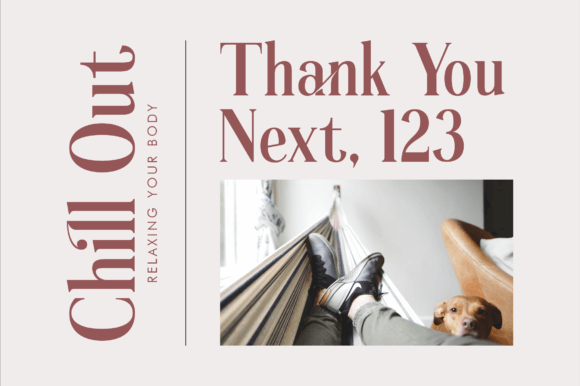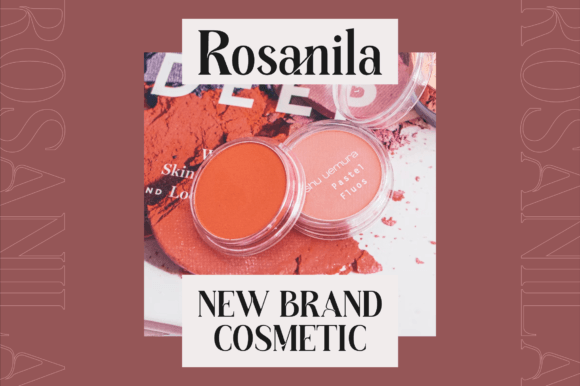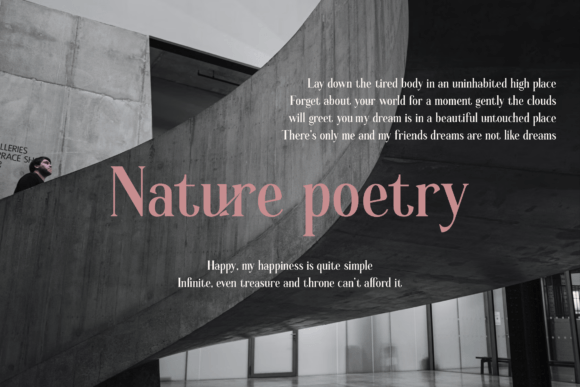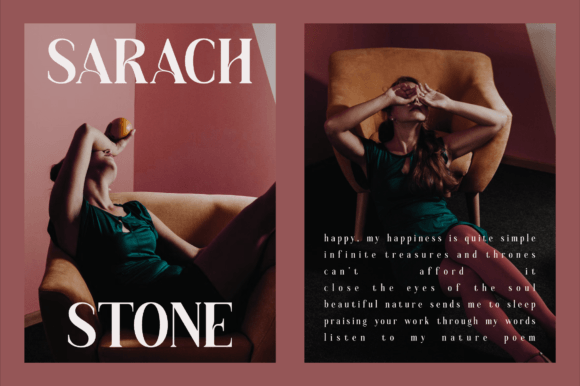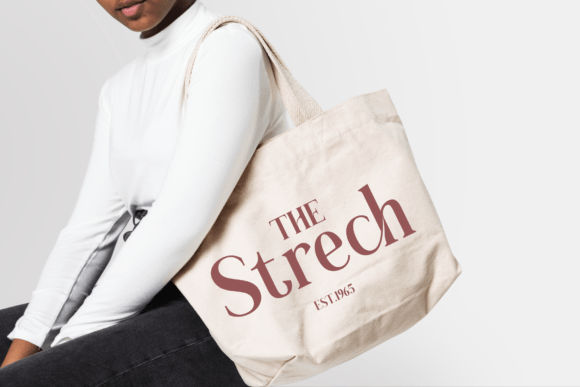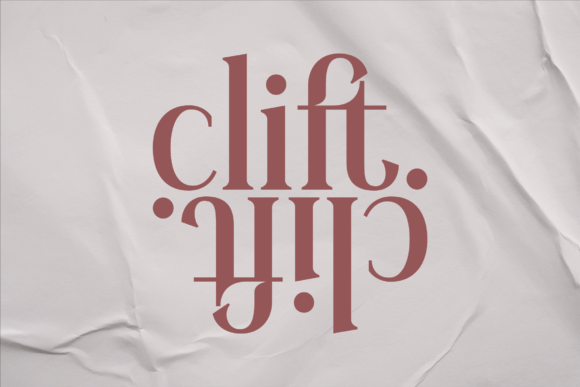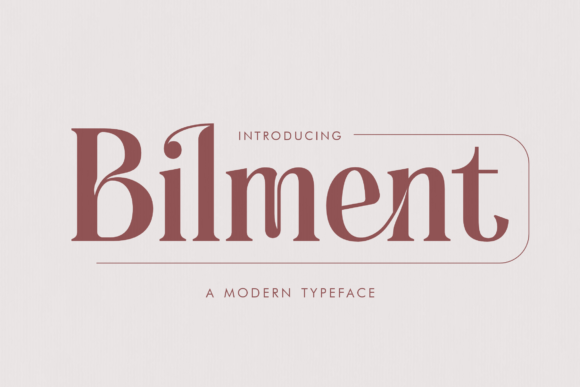
Bilment Font: Elevate Your Designs with a Classic Serif Typeface
In the world of typography, a font can make or break a design. For designers and crafters seeking a typeface that exudes elegance and luxury, Bilment Font is an excellent choice. This classic serif font boasts a unique style and modern look, making it perfect for a wide range of applications, from logos and titles to fashion branding and editorial design.
The Characteristics of Bilment Font
Bilment Font is a serif typeface that draws inspiration from traditional typography while infusing it with a modern twist. Its classic roots are evident in the subtle flair of its serifs and the gentle curves of its letterforms. However, what sets Bilment apart is its distinctive style, which lends itself to both sophistication and approachability. The font’s unique blend of classic and contemporary elements makes it versatile and highly adaptable.
Uses of Bilment Font
The versatility of Bilment Font is one of its most compelling features. Here are some of the many ways designers and crafters can utilize this elegant typeface:
- Elegant Logos: Create a lasting impression with a logo that embodies sophistication and refinement. Bilment Font is ideal for luxury brands, high-end services, and premium products.
- Book and Movie Titles: Add a touch of class to your book covers or movie posters. The font’s classic yet modern appeal makes it perfect for capturing the essence of your story.
- Fashion Branding: Elevate your fashion brand with a typeface that speaks to elegance and style. Bilment Font is well-suited for logos, labels, and marketing materials.
- Magazines and Editorial Design: Give your magazine or editorial content a professional edge with Bilment Font. Its readability and aesthetic appeal make it an excellent choice for articles, headlines, and titles.
- Clothes and Apparel: From brand labels to clothing tags, Bilment Font adds a touch of sophistication to any apparel-related design.
- Lettering and Quotes: Create beautiful lettering pieces or quote designs that stand out. The font’s unique style and classic roots make it perfect for inspirational quotes, sayings, or custom lettering projects.
Why Choose Bilment Font?
With so many fonts available, why choose Bilment? Here are a few reasons why designers and crafters are gravitating towards this typeface:
- Unique Style: Bilment Font offers a distinctive look that sets it apart from more traditional serif typefaces. Its modern twist on classic design makes it stand out in any project.
- Versatility: Whether you’re working on a luxury brand, a fashion magazine, or a book title, Bilment Font adapts seamlessly to various design needs.
- Elegance and Sophistication: The font exudes a sense of elegance and sophistication, making it perfect for designs that require a high-end feel.
- Readability: Despite its decorative elements, Bilment Font maintains excellent readability, making it suitable for both headlines and body text.
How to Use Bilment Font Effectively
To make the most of Bilment Font, consider the following tips:
- Pair with Complementary Fonts: For maximum impact, pair Bilment Font with simpler sans-serif fonts for contrast. This will help create visual hierarchy and add depth to your design.
- Experiment with Weights: If available, experiment with different weights of Bilment Font to create visual interest. Using both light and bold versions can add dimension to your design.
- Pay Attention to Spacing: Ensure adequate spacing between letters and lines to maintain readability and aesthetic appeal. Kerning and leading can significantly affect the overall look of your text.
Bilment Font is a versatile and elegant serif typeface that brings a unique blend of classic sophistication and modern style to any design project. Its adaptability and distinctive look make it an excellent choice for designers and crafters seeking to elevate their work. Whether you’re creating a logo, designing a magazine, or crafting a fashion brand, Bilment Font is sure to leave a lasting impression.